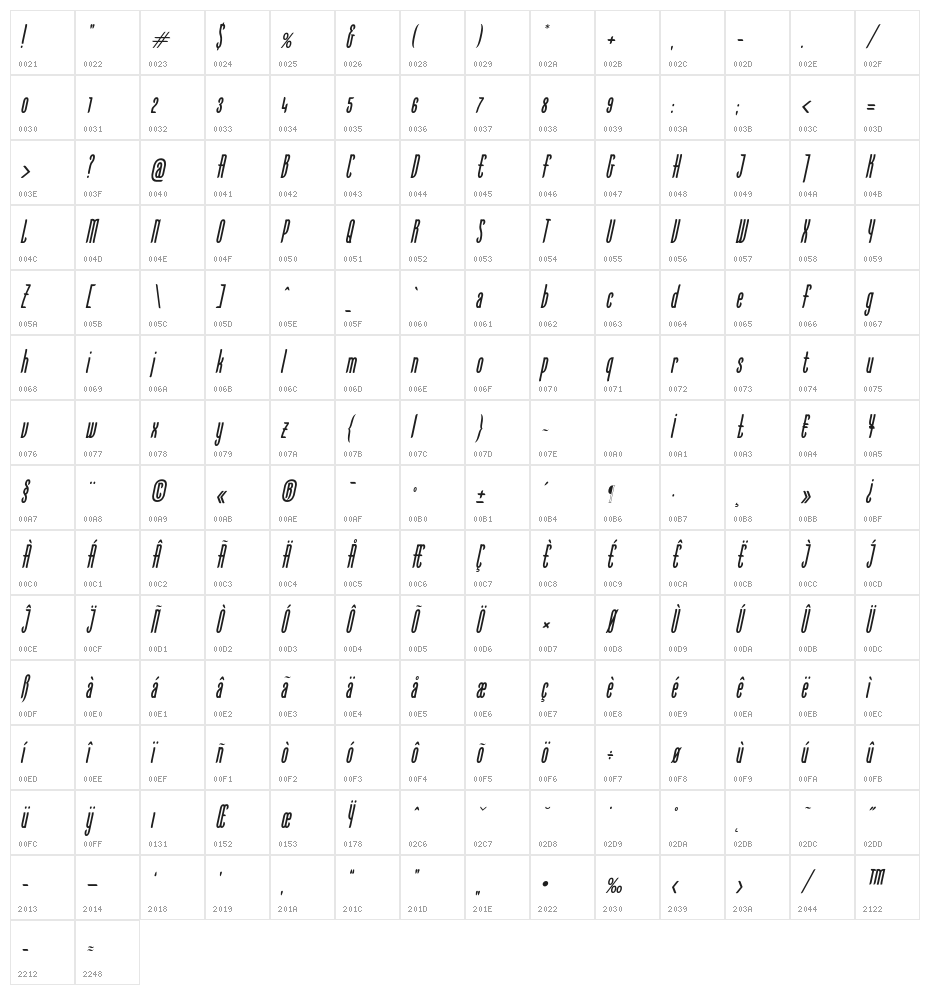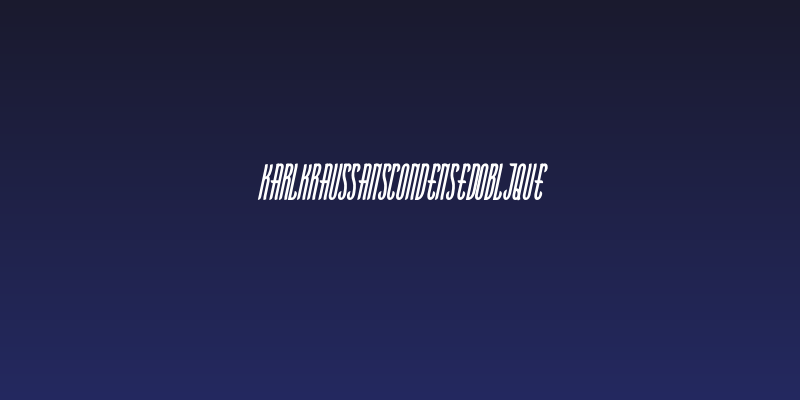
KarlKrausSansCondensedOblique Font
KarlKrausSansCondensedOblique Description
This font features a distinctive oblique style with condensed letterforms, giving it a sleek and modern appearance. The characters are elongated and slightly slanted, creating a dynamic and energetic feel. The strokes are consistent in weight, contributing to a uniform and cohesive look across all characters. The font includes a full set of uppercase and lowercase letters, numerals, and a variety of special characters, making it versatile for different design needs. Its condensed nature allows for efficient use of space, making it ideal for headlines and titles where impact is essential.
| Proposed Projects | Ideal for modern branding, magazine headlines, posters, and dynamic web design. |